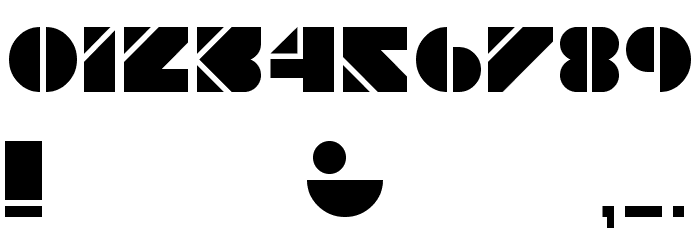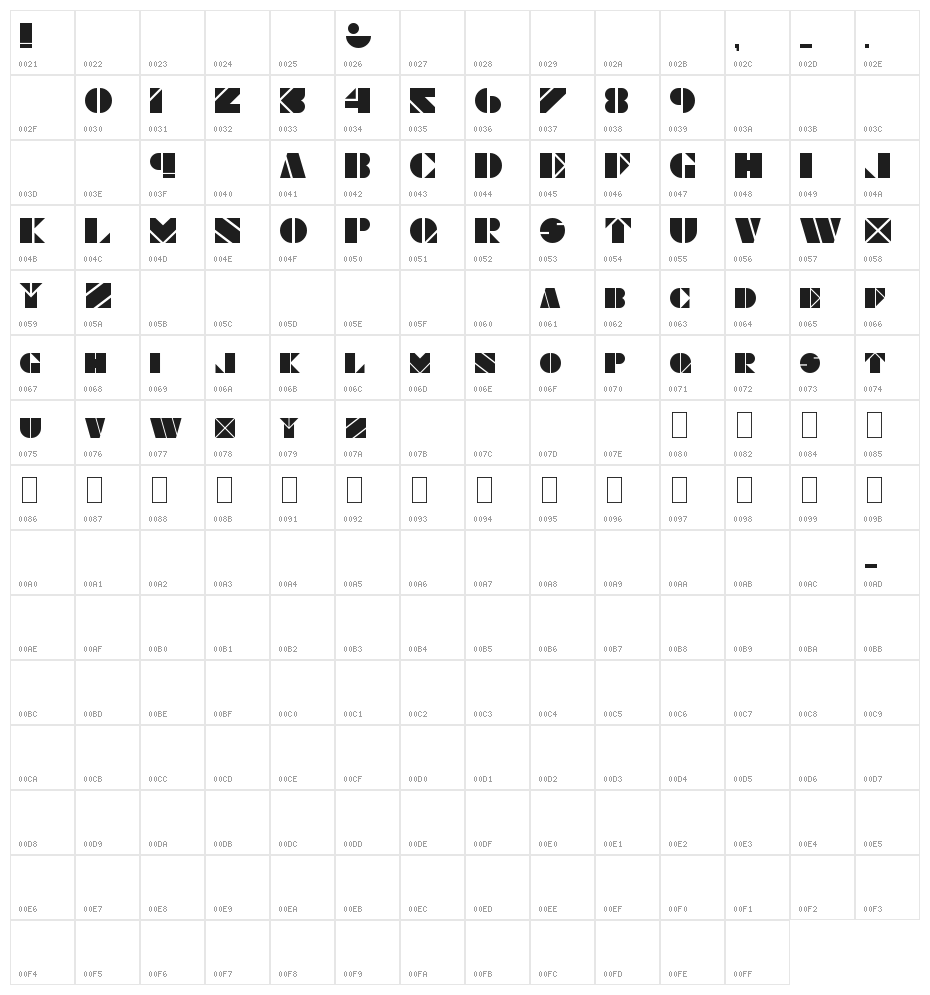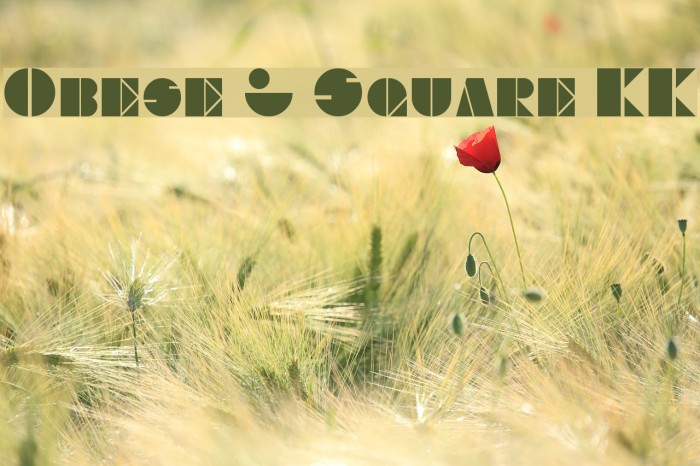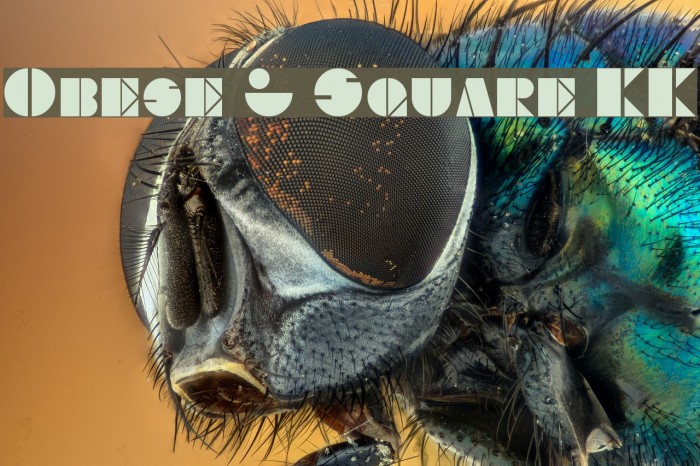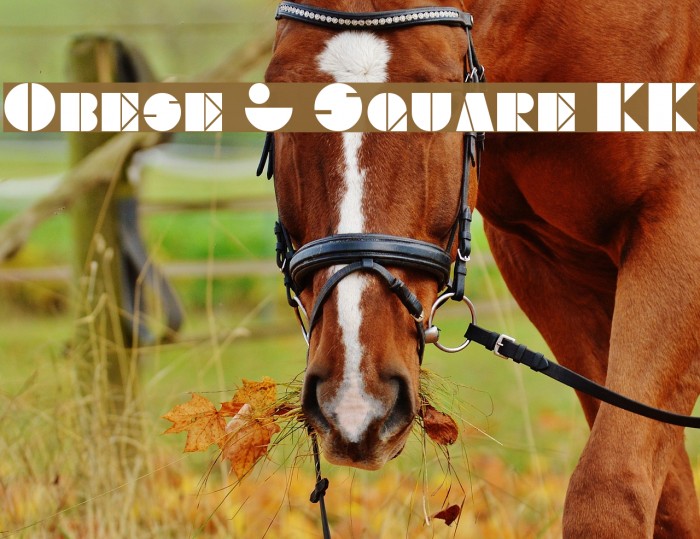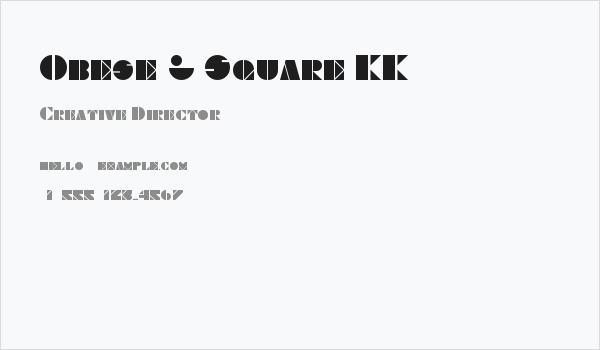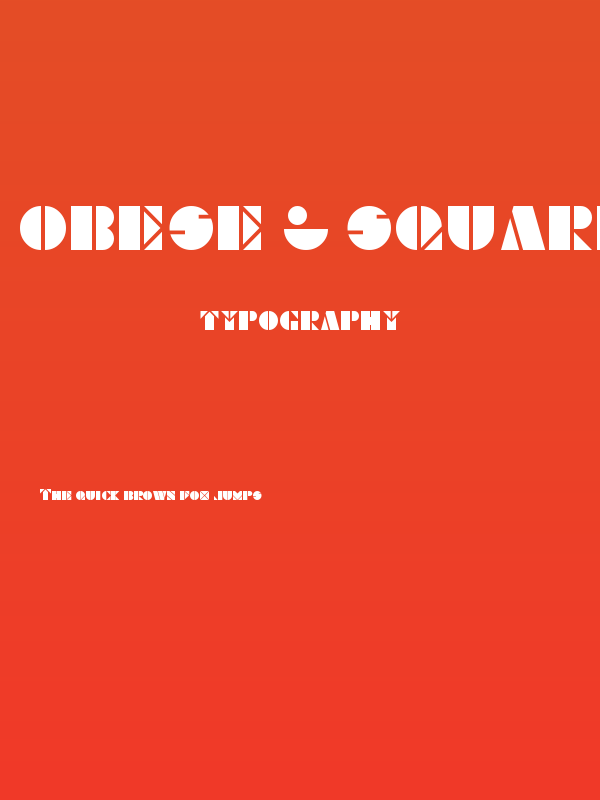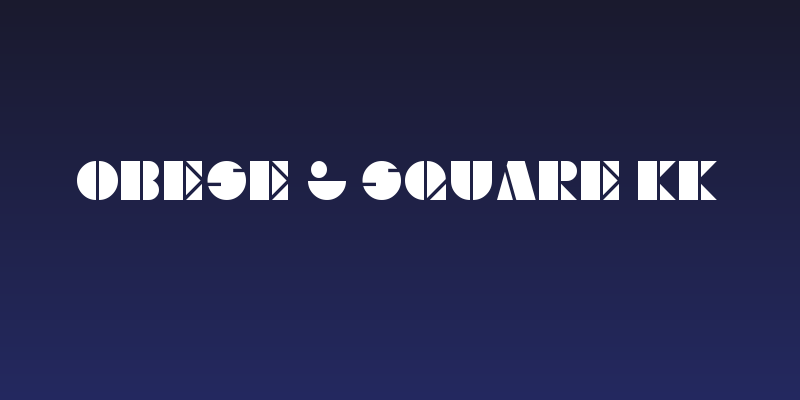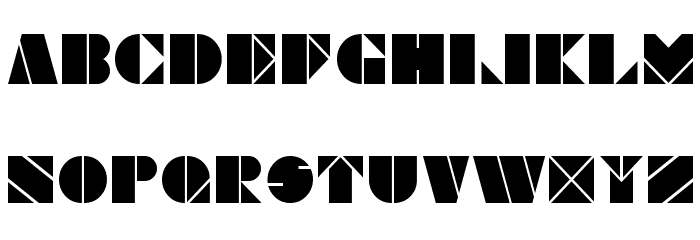
Obese & Square KK Font
Obese & Square KK Description
This font features a bold, geometric design with a strong emphasis on angular shapes and solid fills. Each character is constructed using a combination of triangles, circles, and rectangles, creating a visually striking and modern appearance. The uppercase and lowercase letters share a consistent style, with the uppercase letters being more prominent and the lowercase letters maintaining the same geometric theme. Numbers and special characters are also designed with the same bold, angular aesthetic, ensuring a cohesive look across all elements. The font's unique style makes it suitable for projects that require a strong visual impact.
| Proposed Projects | This font is perfect for branding, poster design, album covers, and any project that requires a modern and bold visual statement. |